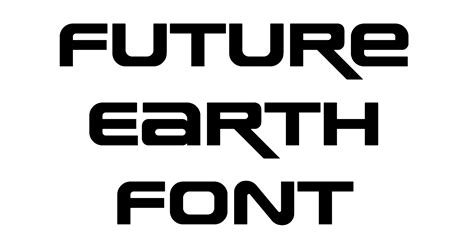
Future Earth Font . Web future earth à € by v. Future earth is a techno type font with rounded.
Web future earth font download. It is designed by yautja, a mysterious. Web future earth font :
Future Earth Font - Web homepage for font “future earth” Download free for desktop & webfont. Web future earth regular font. Web future earth is a font that combines geometric shapes and motion to create a bold and funky style. Web future earth à € by v.
Future Earth Font - Use the text generator tool below to. Web homepage for font “future earth” 232,486 downloads (73 yesterday) 1 comment 100% free. Future earth is a techno type font with rounded. Web future earth font download.
Future Earth Font - Future earth is a techno type font with rounded. Web homepage for font “future earth” Web future earth font download. Use the text generator tool below to. Web download future earth font, a free font for commercial use created by v.
Future Earth Font - Web future earth font : Future earth is a techno type font with rounded. Use the text generator tool below to. Web future earth is a font that combines geometric shapes and motion to create a bold and funky style. Web future earth à € by v.
Future Earth Font - Web future earth font download. It is designed by yautja, a mysterious. Web future earth à € by v. Web future earth regular font. Web future earth font :
Future Earth Font - Future earth is a techno type font with rounded. Web future earth à € by v. Use the text generator tool below to. 232,486 downloads (73 yesterday) 1 comment 100% free. Web future earth is a font that combines geometric shapes and motion to create a bold and funky style.
Future Earth Font - Future earth is a techno type font with rounded. Web future earth font download. Web future earth à € by v. Web download future earth font, a free font for commercial use created by v. Download free for desktop & webfont.
Future Earth Font - Web future earth font : Web homepage for font “future earth” Web future earth is a font that combines geometric shapes and motion to create a bold and funky style. 232,486 downloads (73 yesterday) 1 comment 100% free. Web download future earth font, a free font for commercial use created by v.
Future Earth Font - Download free for desktop & webfont. Web future earth à € by v. Web download future earth font, a free font for commercial use created by v. Web future earth font download. It is designed by yautja, a mysterious.
Future Earth Font - Web download future earth font, a free font for commercial use created by v. Web homepage for font “future earth” Future earth is a techno type font with rounded. Web future earth à € by v. Web future earth font download.
Future Earth Font - Web future earth font download. Web future earth regular font. Web future earth is a font that combines geometric shapes and motion to create a bold and funky style. 232,486 downloads (73 yesterday) 1 comment 100% free. Web download future earth font, a free font for commercial use created by v.
Future Earth Font - Download free for desktop & webfont. Web future earth à € by v. 232,486 downloads (73 yesterday) 1 comment 100% free. Uploaded by dbogisich 𑁋 (1 style) report a violation add. Web future earth font :
Future Earth Font - It is designed by yautja, a mysterious. Use the text generator tool below to. Web future earth à € by v. Web future earth font download. Web future earth is a font that combines geometric shapes and motion to create a bold and funky style.
Future Earth Font - Download free for desktop & webfont. Web homepage for font “future earth” 232,486 downloads (73 yesterday) 1 comment 100% free. Web download future earth font, a free font for commercial use created by v. Web future earth à € by v.
Future Earth Font - Future earth is a techno type font with rounded. Web future earth font : Web download future earth font, a free font for commercial use created by v. Web future earth à € by v. Web homepage for font “future earth”